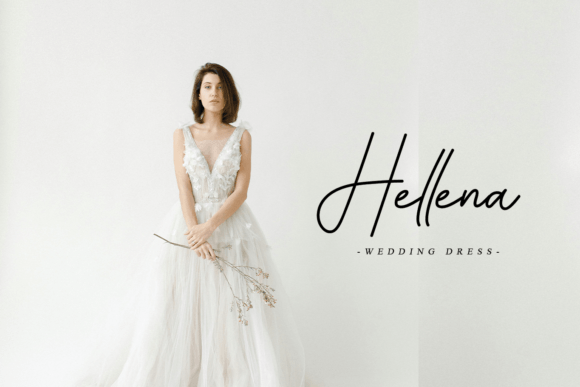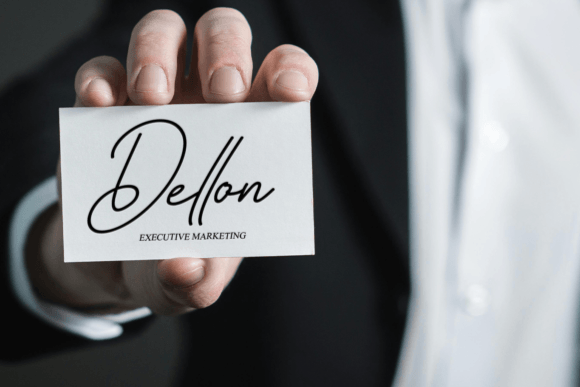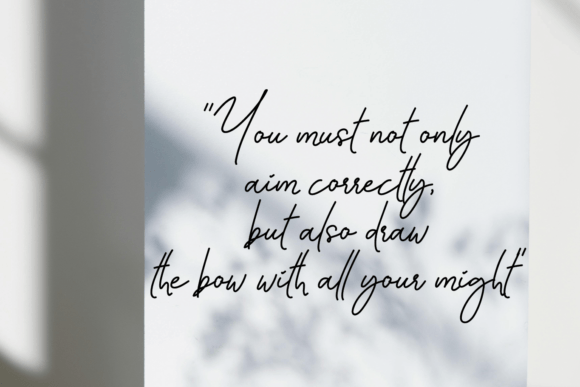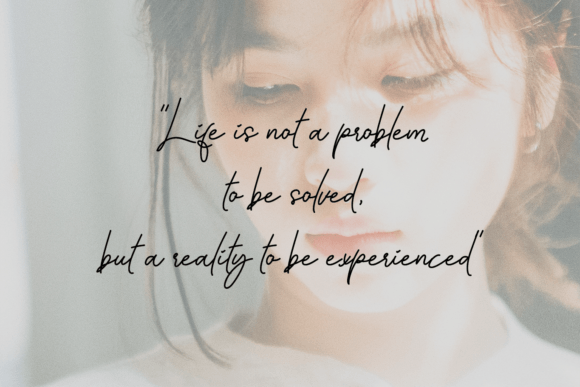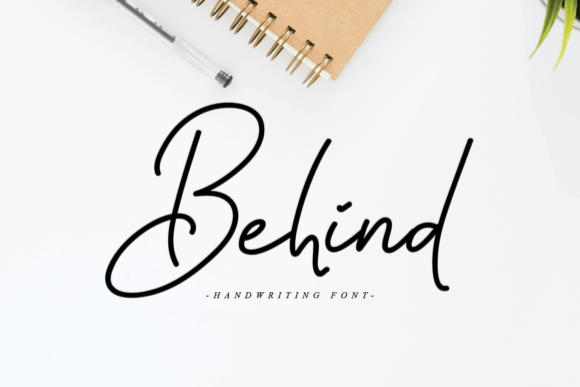
Unveiling the Elegance of Behind Font: A Designer's Delight
In the realm of typography, few fonts manage to capture the essence of elegance and modernity as effortlessly as Behind Font. This beautiful and refined script font has been making waves in the design community, and for good reason. Its classy, elegant, and modern look makes it an ideal choice for a wide range of design projects, from logos and branding to invitations, stationery, wedding designs, social media posts, and beyond.
The Making of a Timeless Font
Behind Font's design is rooted in the principles of traditional script typography, yet it boasts a contemporary twist that sets it apart from more traditional fonts. Each letter is meticulously crafted to exude a sense of sophistication and refinement, making it perfect for designers and crafters looking to add a touch of luxury to their work.
One of the standout features of Behind Font is its incredible versatility. Whether you're working on a logo, a wedding invitation, or a social media post, this font seamlessly adapts to fit your design needs. Its elegant and modern aesthetic ensures that your work stands out, yet remains approachable and engaging.
Perfect for:
• Logos and Branding: Create a lasting impression with a logo that exudes elegance and sophistication.
• Invitations and Stationery: Elevate your event invitations and stationery with a touch of class and refinement.
• Wedding Designs: Make your wedding designs truly unforgettable with a font that embodies romance and luxury.
• Social Media Posts: Stand out on social media with elegant and engaging posts that capture your audience's attention.
Why Designers and Crafters Love Behind Font
Behind Font has quickly become a favorite among designers and crafters for several reasons:
• Ease of Use: Despite its complex and elegant appearance, Behind Font is surprisingly easy to use, even for those new to design.
• High-Quality Design: Each letter is carefully designed to ensure a high level of quality and consistency, making it perfect for professional projects.
• Customization Options: With a range of customization options available, you can tailor Behind Font to fit your unique design needs.
Tips for Getting the Most Out of Behind Font
To truly make the most of Behind Font, consider the following tips:
• Experiment with Sizes: Behind Font's elegance shines at various sizes, so don't be afraid to experiment to find the perfect fit for your project.
• Play with Colors: While the font itself is stunning, the right color choice can elevate your design to new heights.
• Mix and Match: Combine Behind Font with other fonts for a unique and eye-catching design.
Behind Font is more than just a script font; it's a tool for designers and crafters to create stunning, professional-grade work. Its elegant and modern design, coupled with its versatility and ease of use, makes it an invaluable asset in any designer's toolkit. Whether you're looking to create a memorable logo, craft beautiful wedding invitations, or simply elevate your social media posts, Behind Font is sure to exceed your expectations.